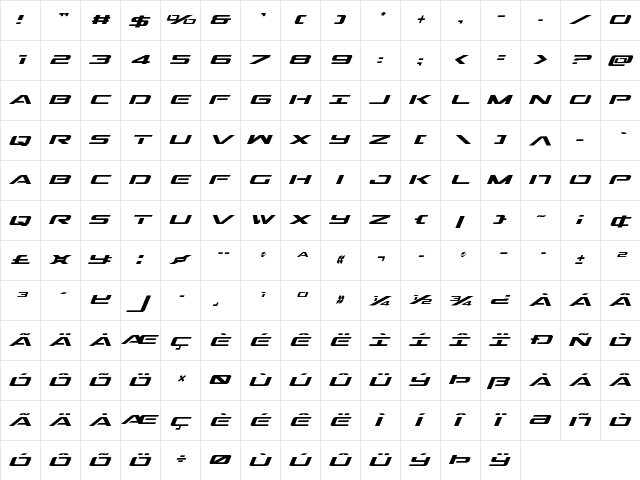
Outrider Semi-Condensed Italic Font Preview
Design Context for Outrider Semi-Condensed Italic Typeface
Outrider Semi-Condensed Italic offers clean, dependable letterforms without strong stylistic allegiance, making it a practical choice for designers who need flexibility. Its italic angle brings a sense of urgency and motion to the letterforms. Its narrow stance lets it pack a punch even in space-constrained designs.
Pro Tip: Use Outrider Semi-Condensed Italic for emphasis, pull quotes, and subheadings where its slanted energy can add rhythm to the layout.